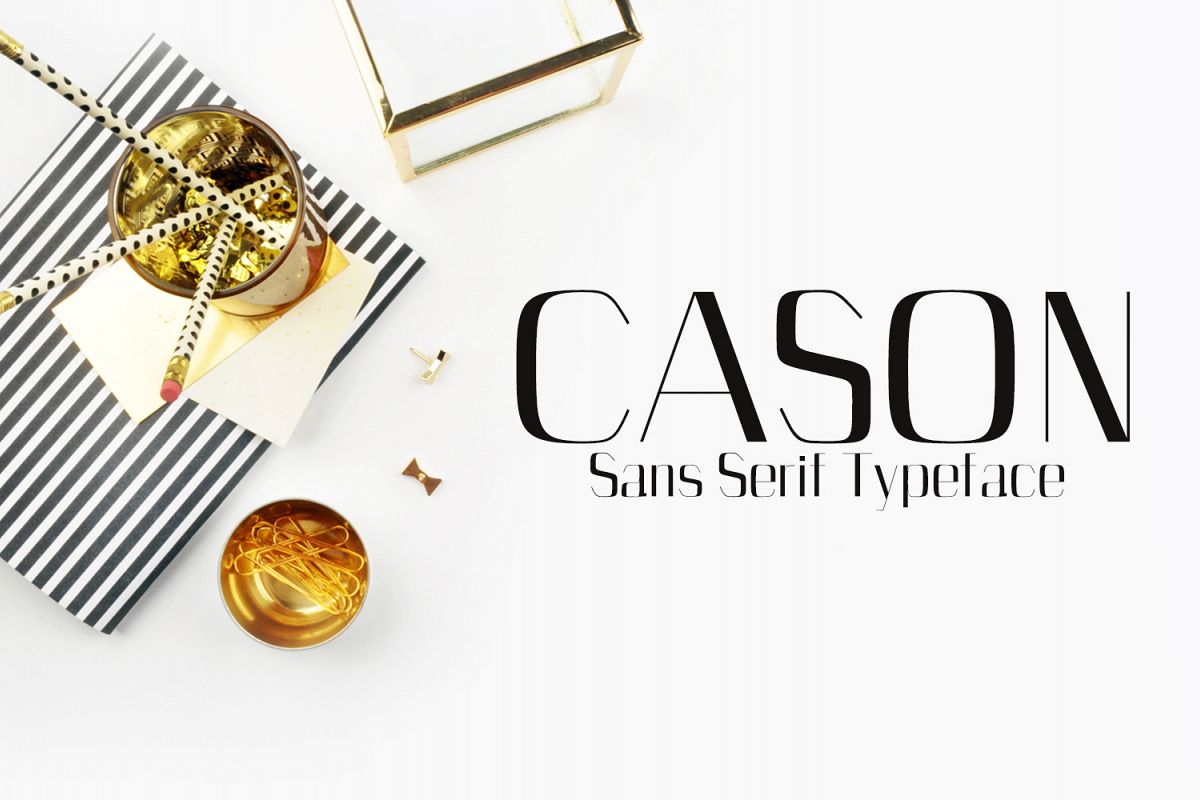
Cason Sans Serif Typeface
Cason Sans Serif Typeface is a set of 5 weights font family. It is good for making creative templates and stationary. Cason typeface suits best for modern / clean designs, logos, headlines, banners and templates etc.It looks gorgeous in all caps with a wide-set spacing if you want to try a classy look, or beautiful on its own in capital and lowercase letters for something completely timeless.Included Features:
• Regular, Thin, Light, Bold and Extra Bold Weights
• Extras: Uppercase Multilingual Letters, Lowercase Multilingual Letters, Numbers & Punctuation + Alternatives.
Highlights
• Cason is a highly versatile Font Family Pack.
• Includes 5 weights
• The perfect choice for Modern, Fashion & Magazine Titles.
• Great for use on quotes, short phrases, magazines, logotypes and all sorts of advertising.